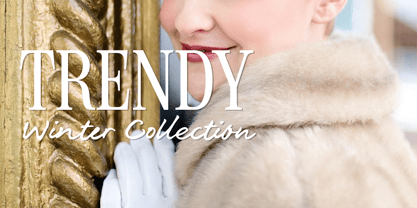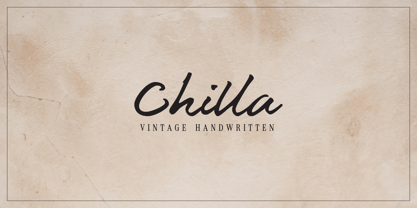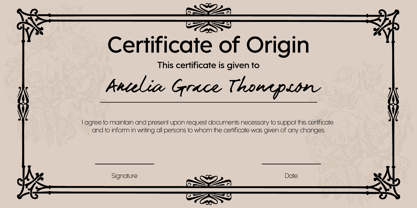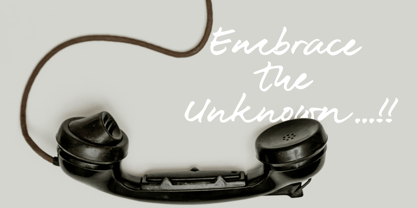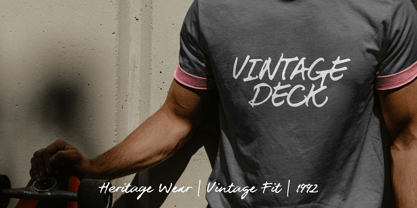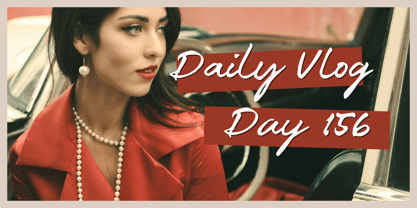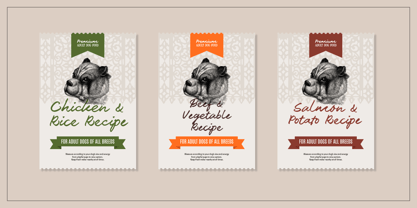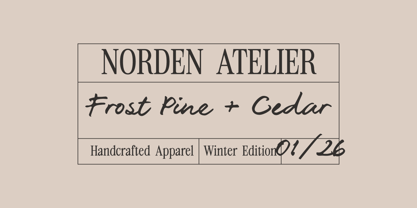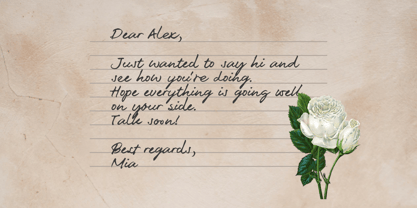
Chilla
by Hazztype
The Chilla Font Family was designed by Muhammad Hastian and published by Hazztype. Chilla contains 1 styles. More about this family
Chilla is a vintage handwritten font that mimics the fluid beauty of wet ink on paper. With natural variations, soft ink bleed, and a warm retro character, Chilla revives the charm of classic handwritten letters. Ideal for packaging, branding, invitations, posters, and nostalgic design projects that crave an authentic, human touch. With its warm, nostalgic character and smooth wet-ink texture, Chilla brings a genuine handmade touch to your designs. Perfect for vintage branding, retro packaging, wedding invitations, logotype, book covers, quotes, apparel, and any project that needs an organic, soulful, and timeless handwritten feel. Whether you want a casual everyday script or an elegant vintage statement, Chilla delivers that perfect balance of legibility and authentic ink personality.